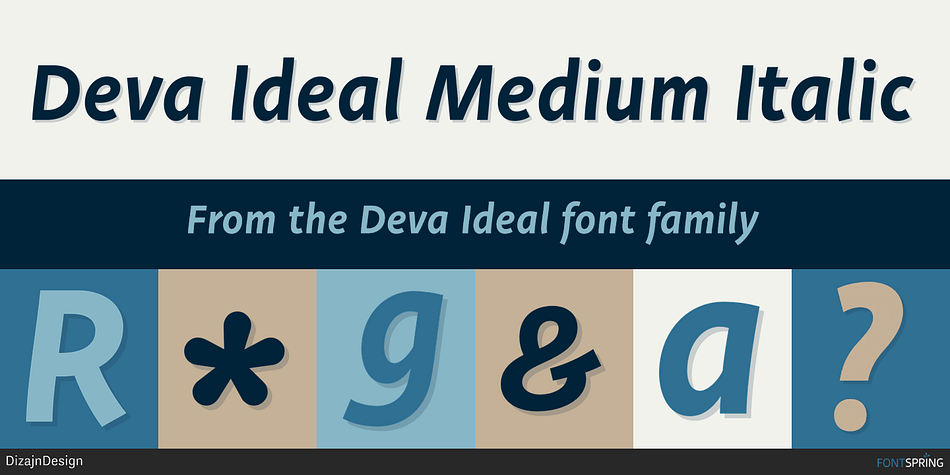
Deva Ideal Medium Italic
Deva Ideal is a sans serif font family. This typeface has ten styles and was published by DizajnDesign.
Deva Ideal was inspired by women’s beauty.
Deva Ideal was inspired by women’s beauty. It didn’t come only from the desire to create a new typeface. It also seeks to materialize beauty in a visual form. Instead of imitating the shapes of the female body or other formal attributes, Deva Ideal is an abstract expression of the women’s beauty.
The unique character of the typeface is achieved by the use of soft, almost invisibly bent strokes, since one of the priorities of the typeface is not to disturb the eye of the reader with odd design details. Deva Ideal excels in her cold beauty and shows her sex appeal. The soft curves present in Deva Ideal differ from the masculine and technical shapes used in most contemporary typefaces.
Deva Ideal has ideal proportions (90 / 60 / 90) and its shapes are essential and simple. Because of this, it is ideal for setting text in all kinds of printed matter: catalogues, books and magazines. The letter forms are wide and open, so text can be set in small sizes and thus space can be saved, while keeping the same degree of readability.